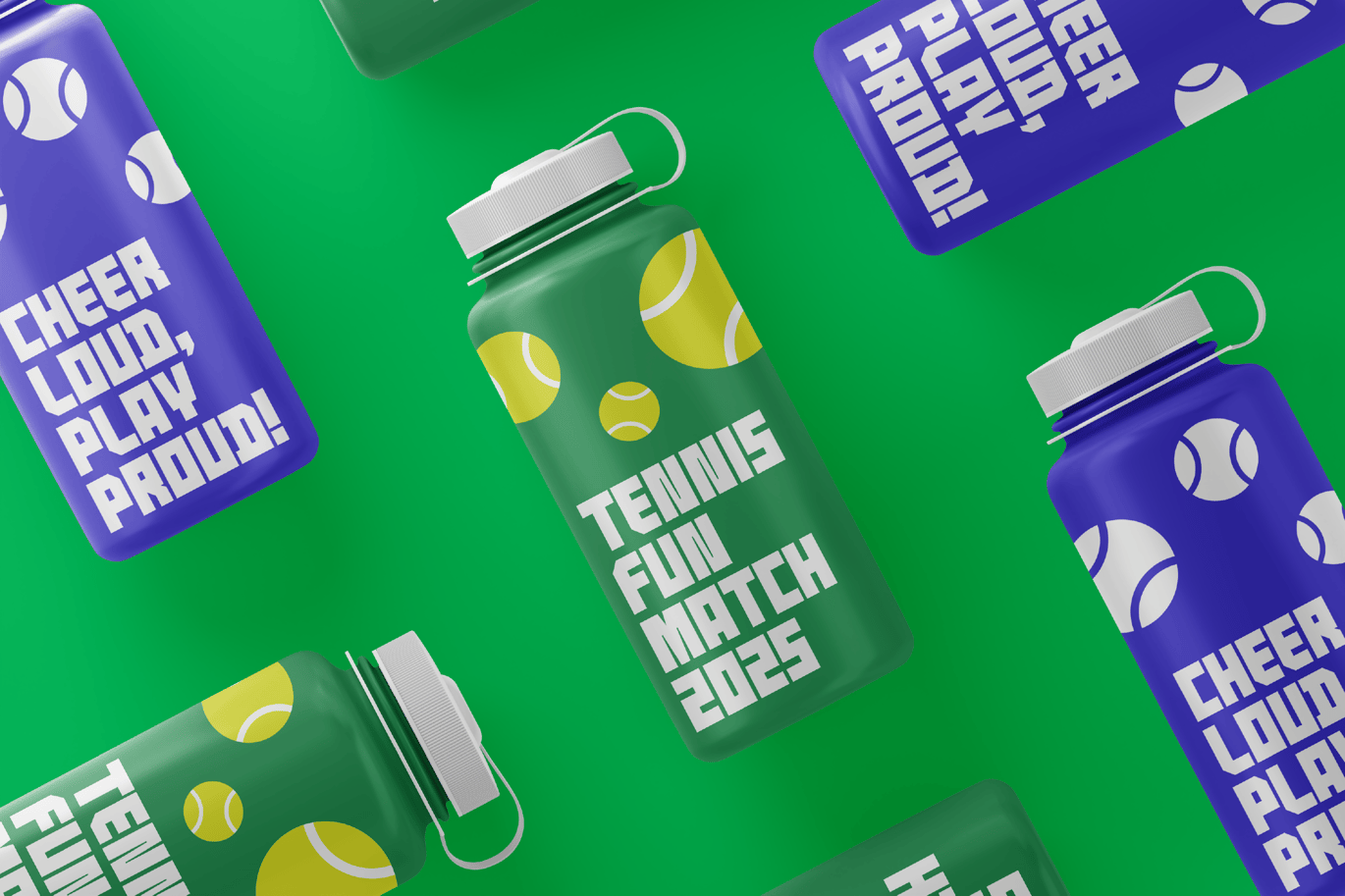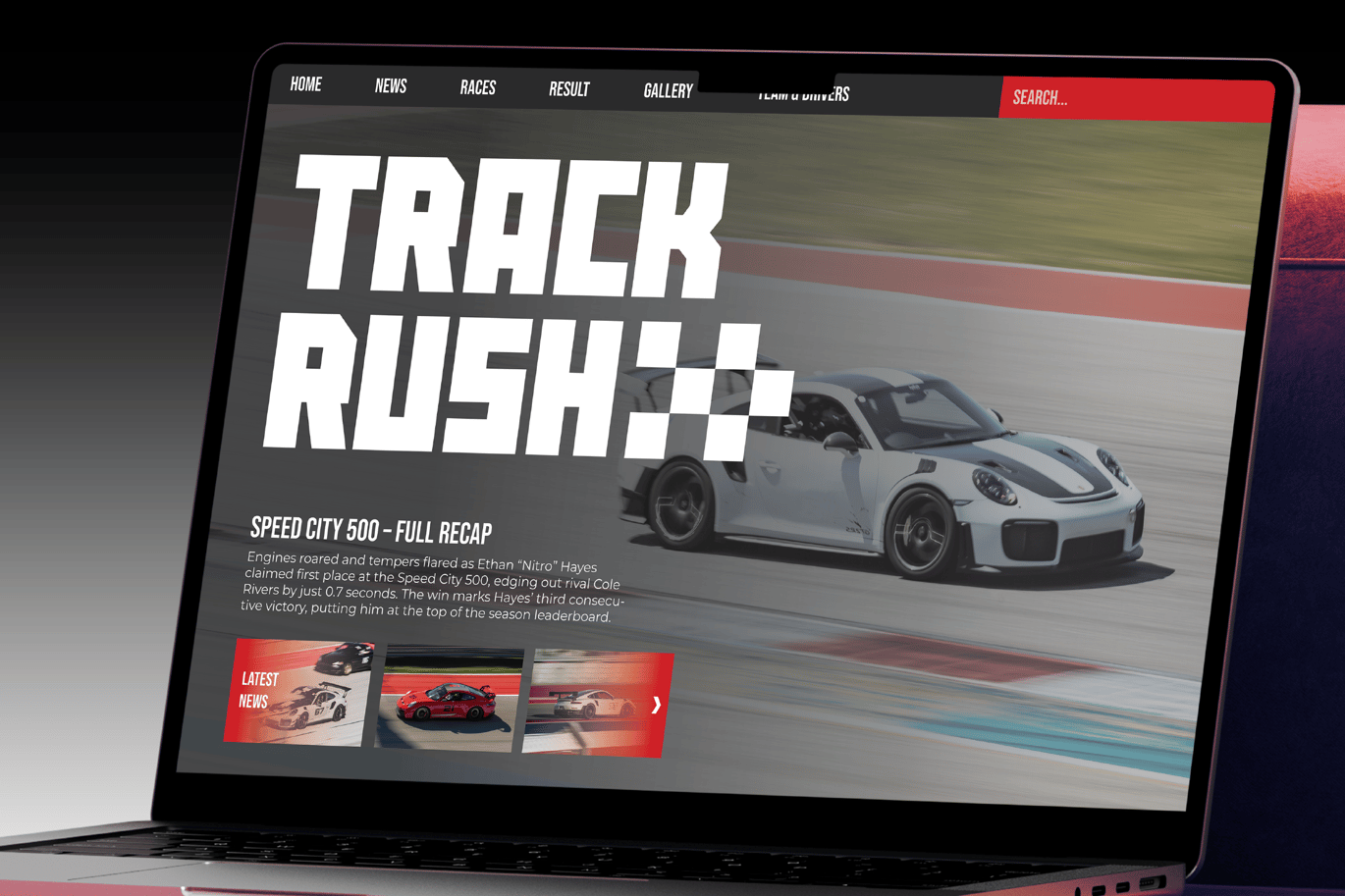
Bigstage – Modern Sport Bold Condensed Font
Bigstage – Modern Sport Bold Condensed Font is a versatile typeface ideal for various projects, including logos, branding, posters, blog headers, advertisements. The free version includes a full set of uppercase and lowercase letters, available in OTF format.